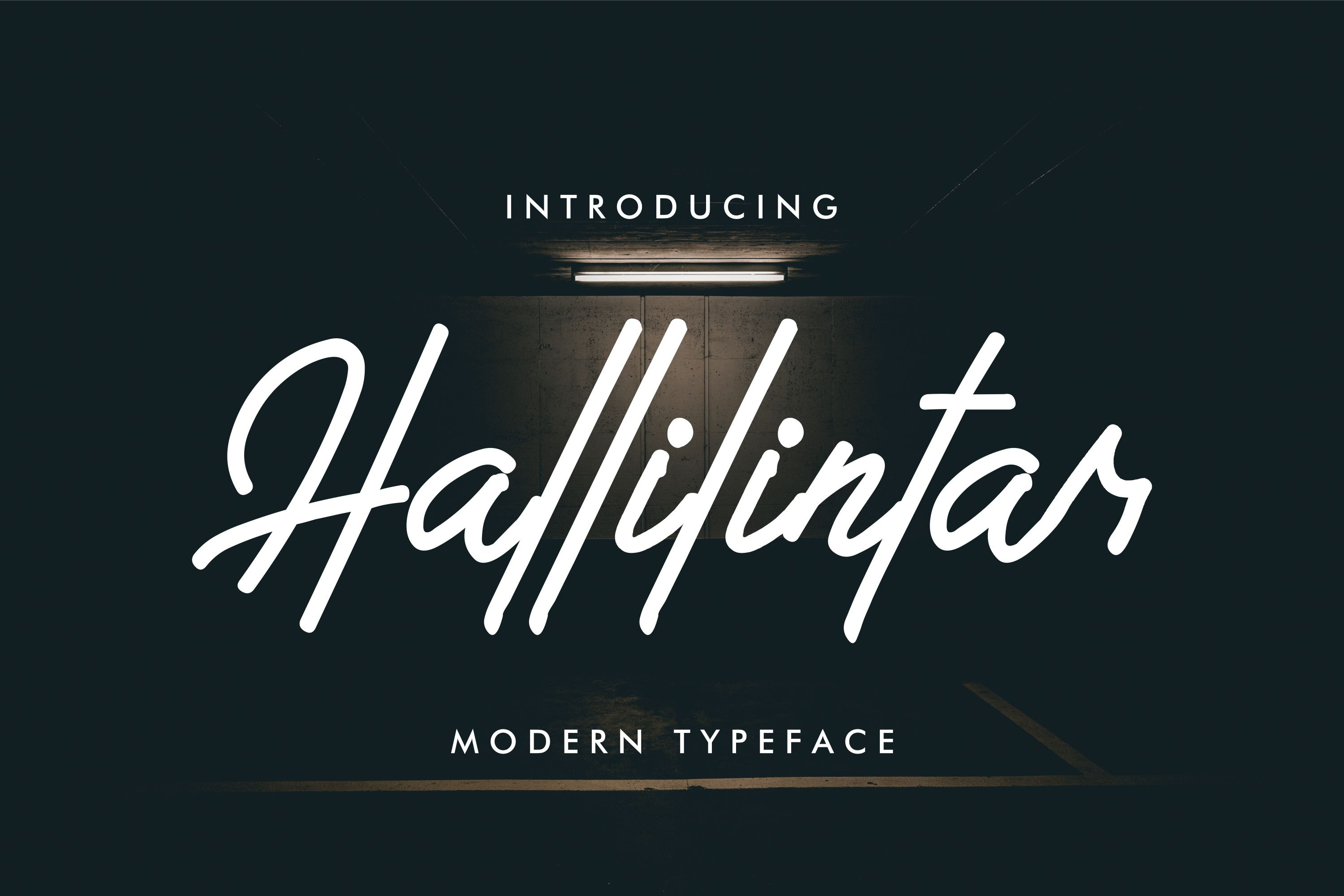
Hallilintar | Modern Font
Introducing: Hallilintar is a modern handwriting with personal charm. With monoline touch, regular and distinctive style. Hallilintar is perfect for branding projects, household design, product packaging, brand logos, or just as a stylish text overlay for any background image.